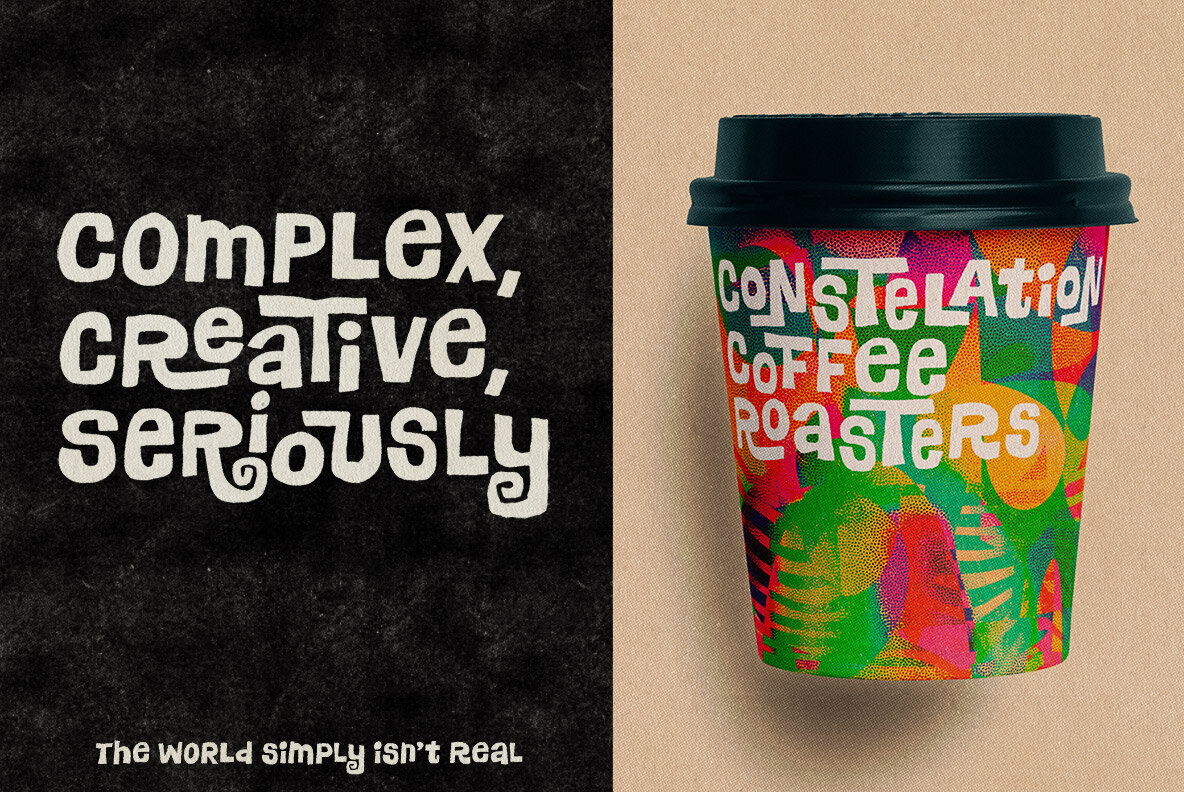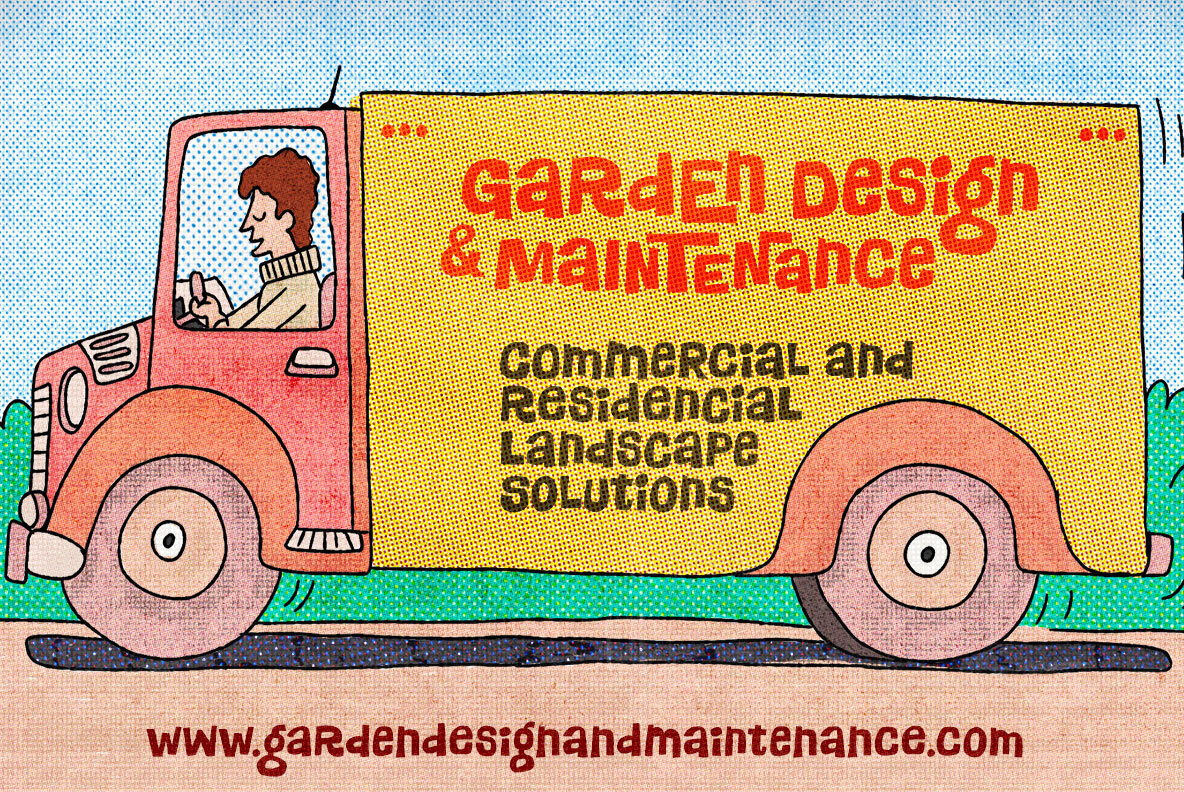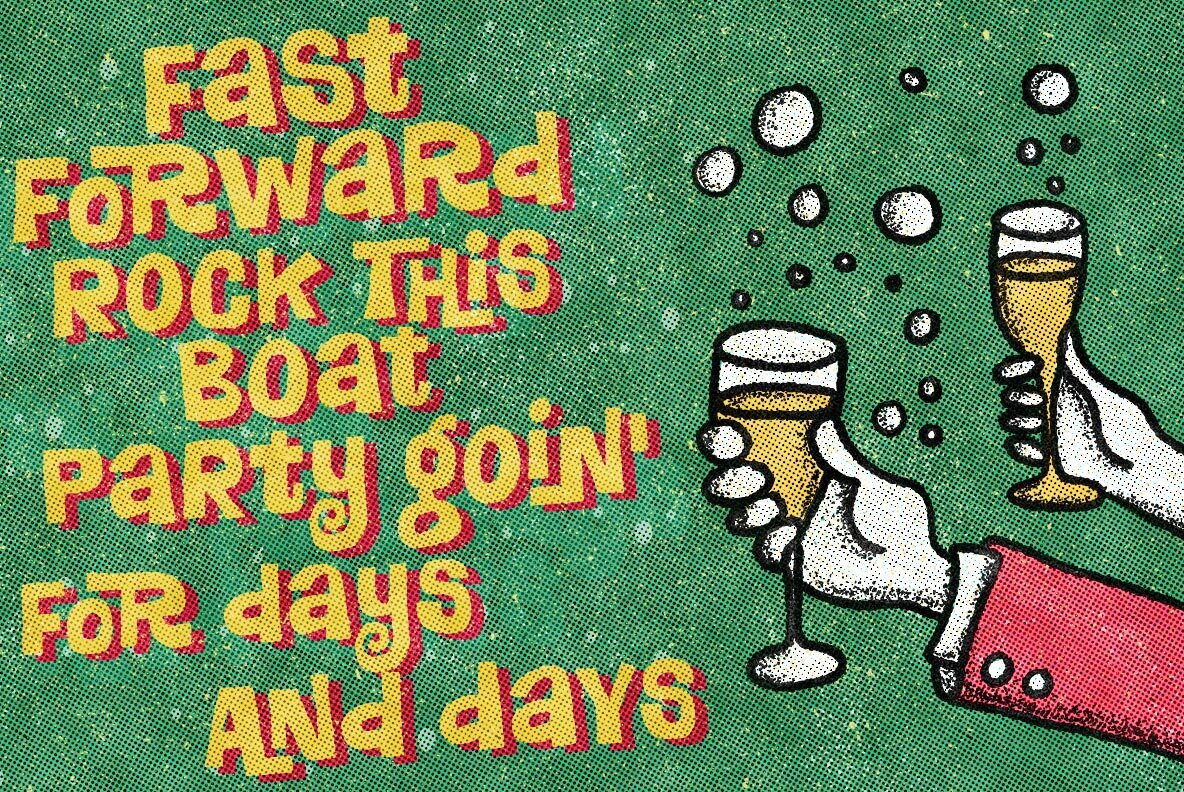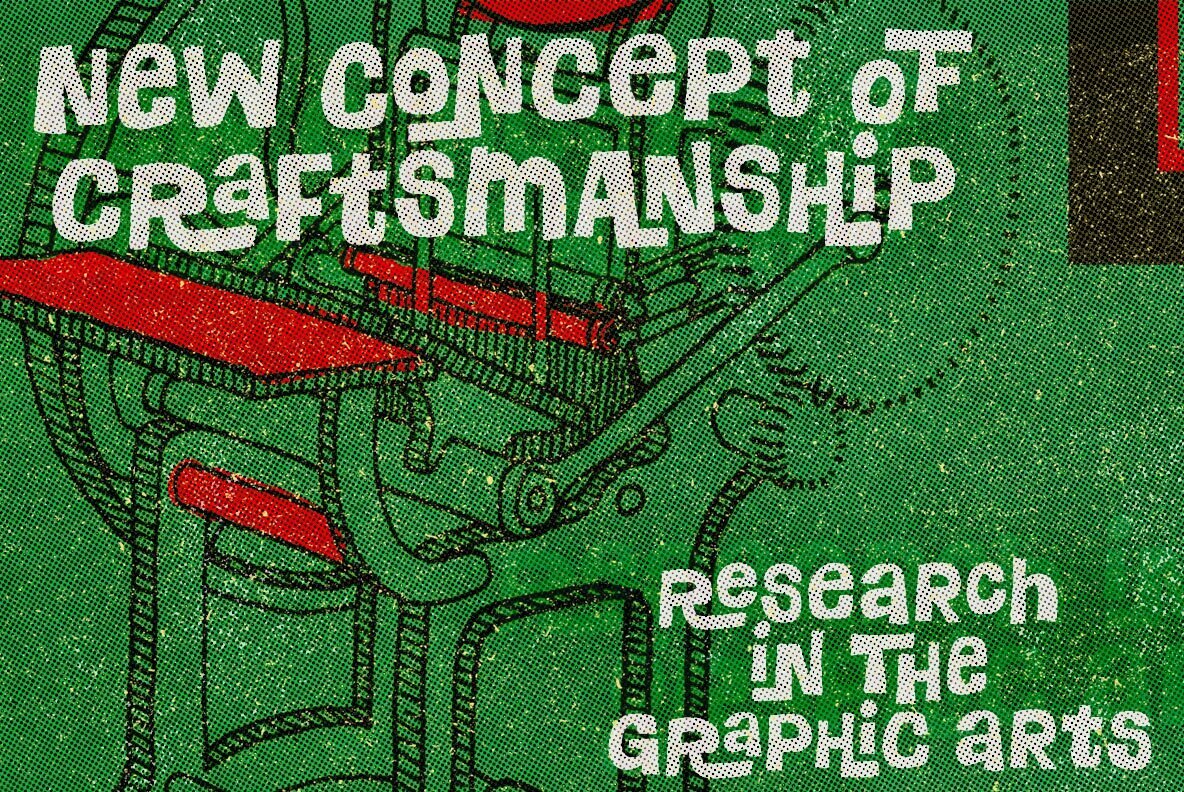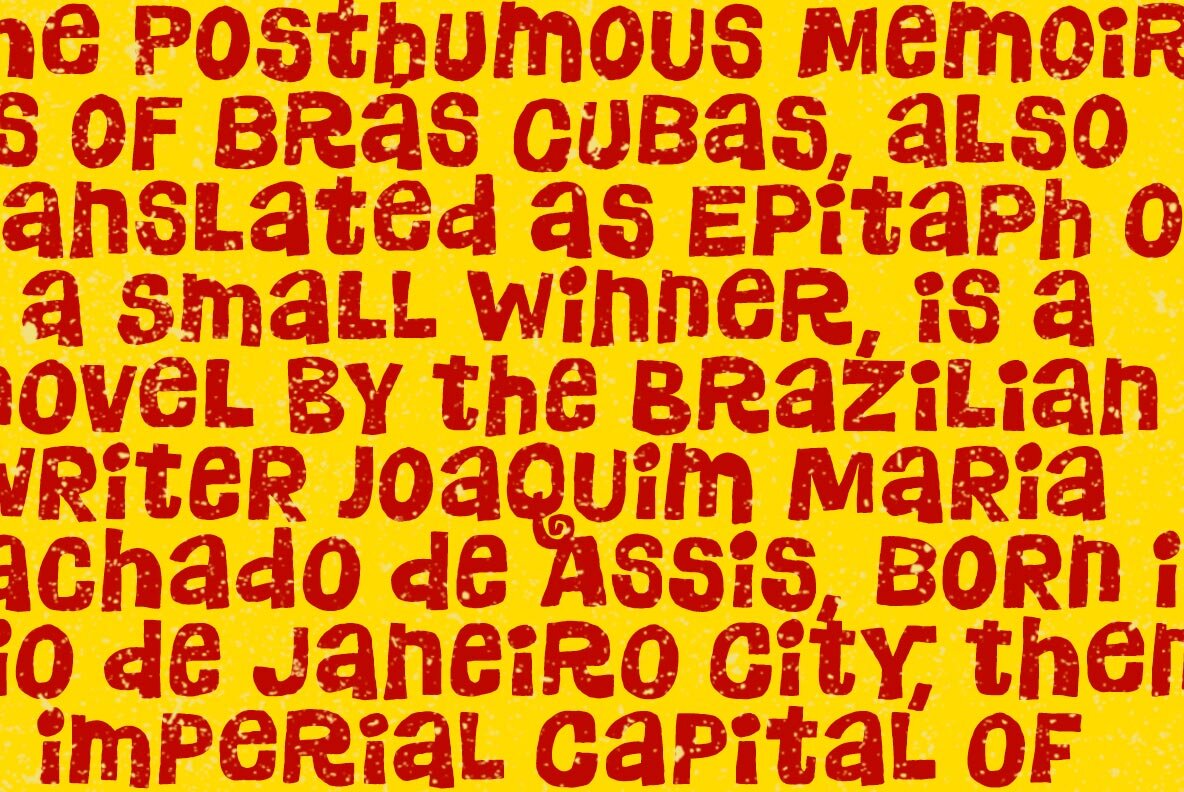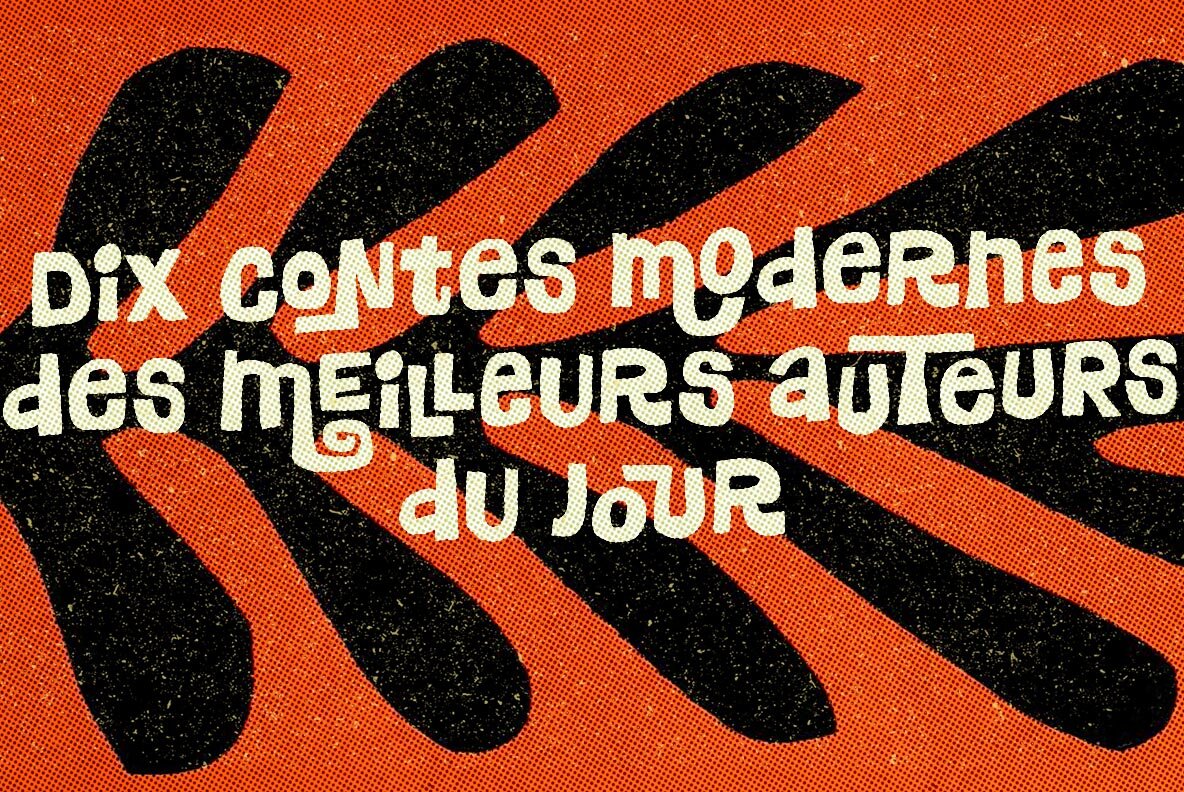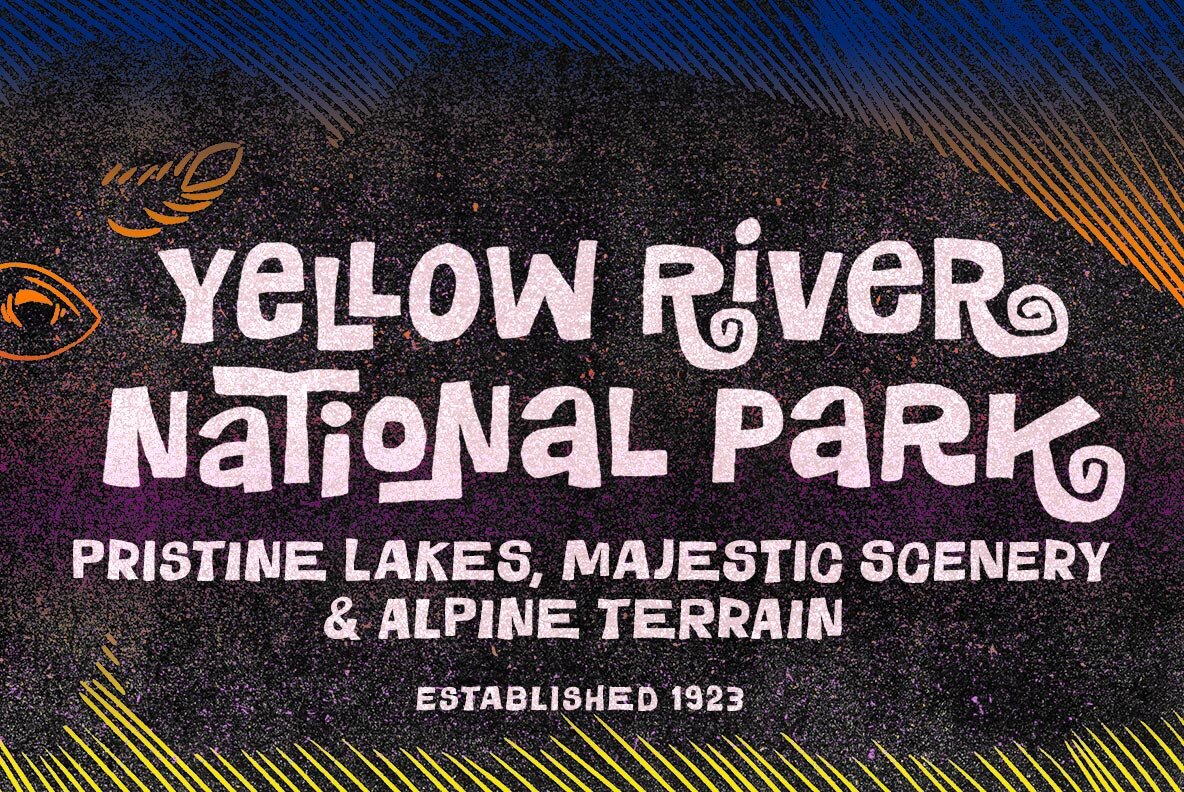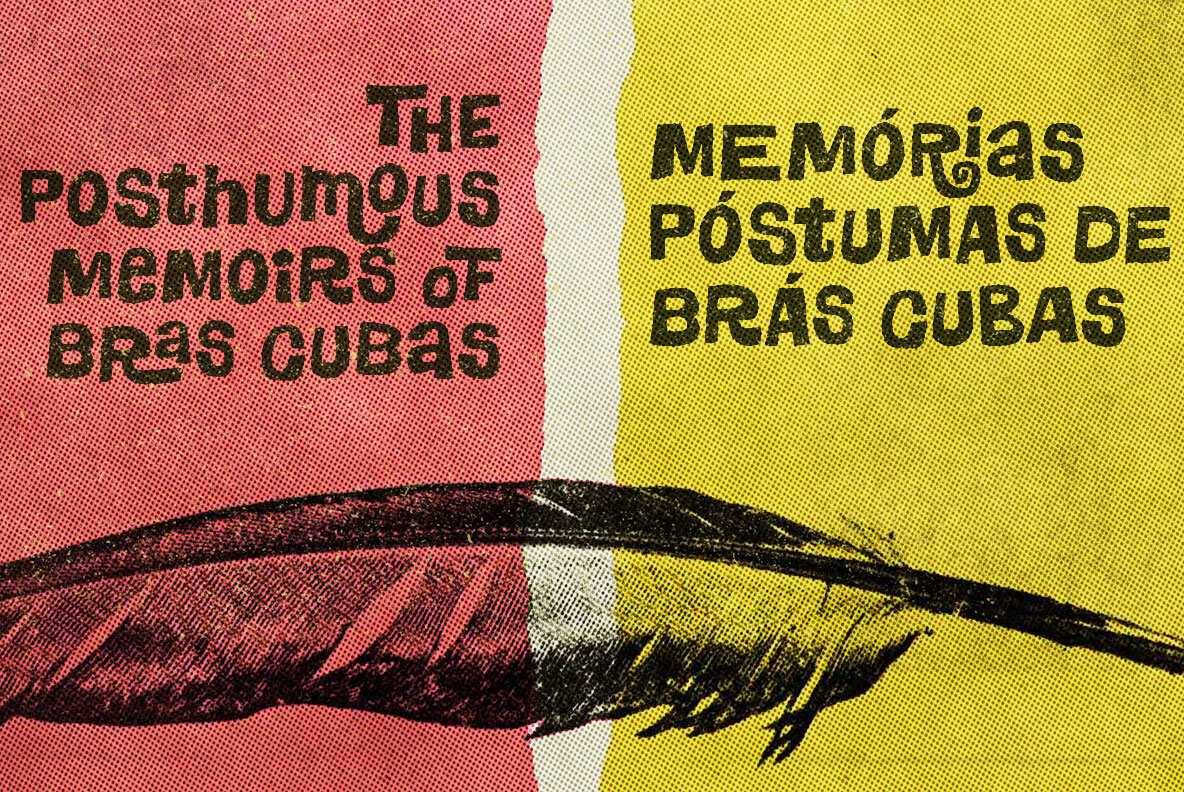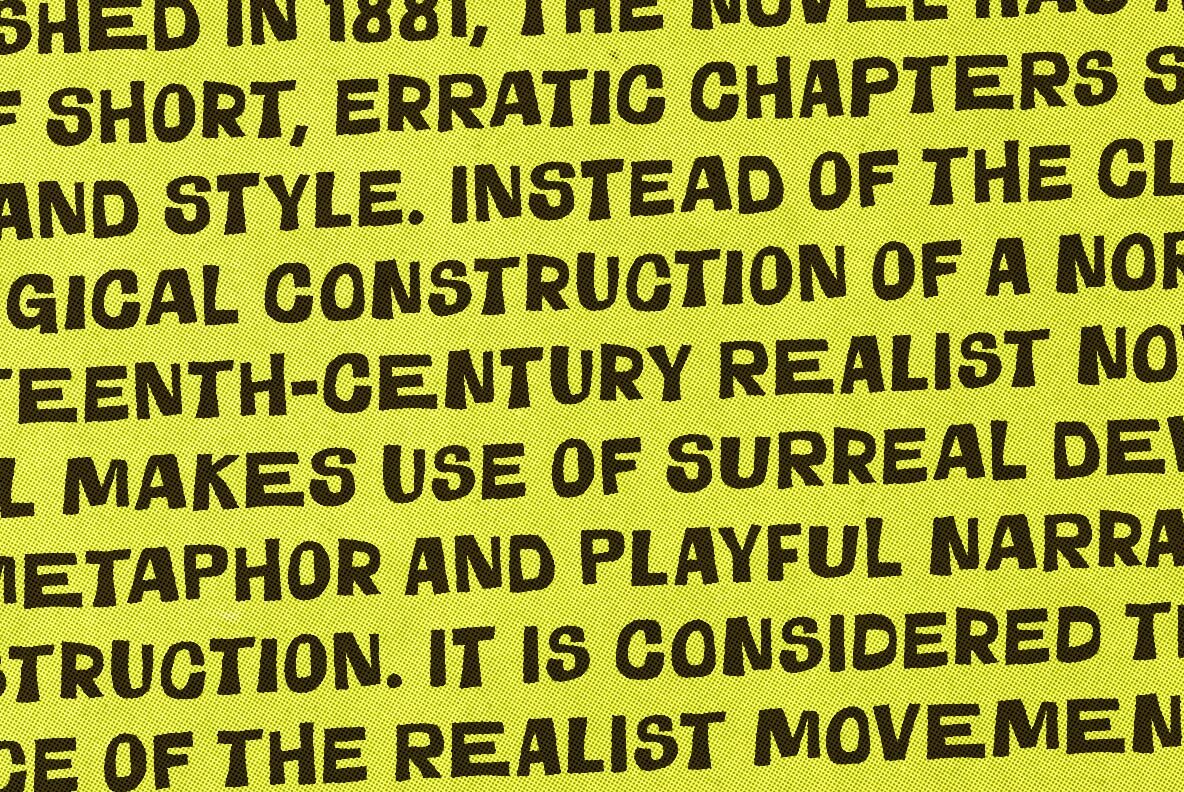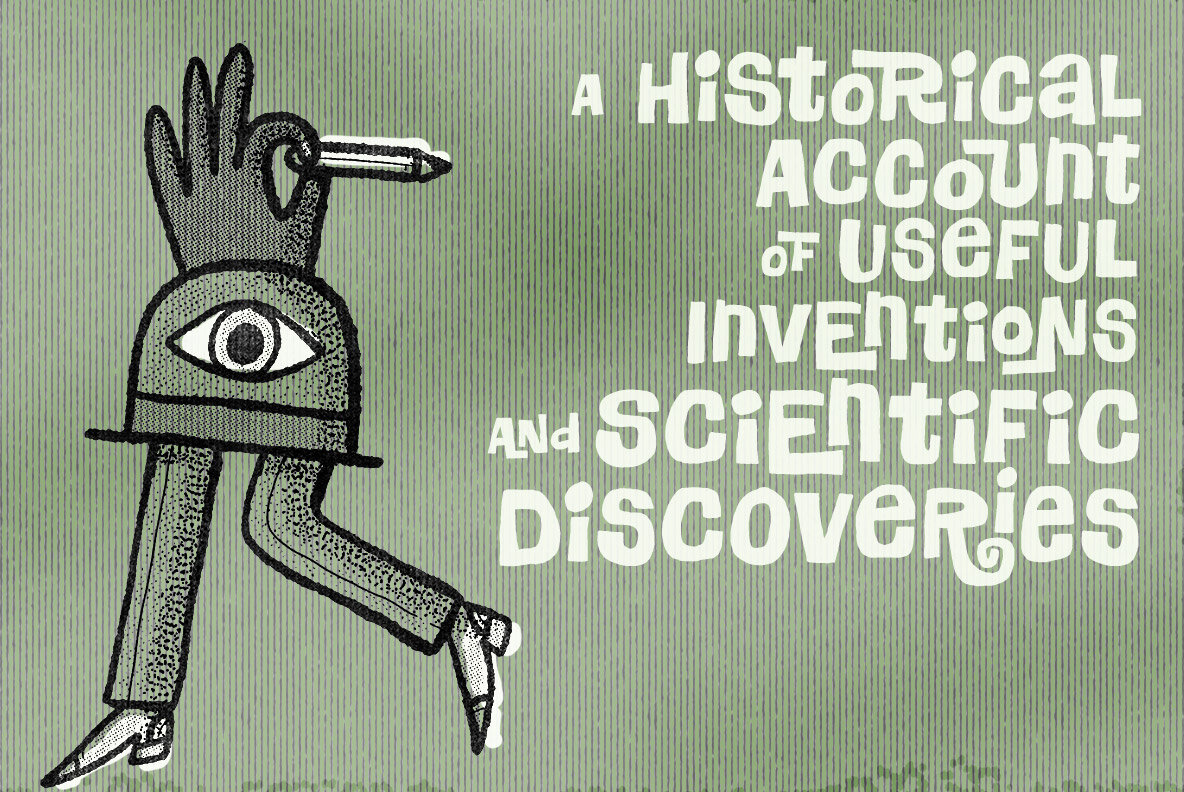
Phantaztik Font
Phantaztik
Phantaztik is a bold and groovy font packed with stylish interlocks, uncommon alternates, extended language coverage, and clever OpenType programming. Full of cheer and optimism, it's a fantastic option for packaging projects, book covers, game titles, apparel, and many more creative applications.